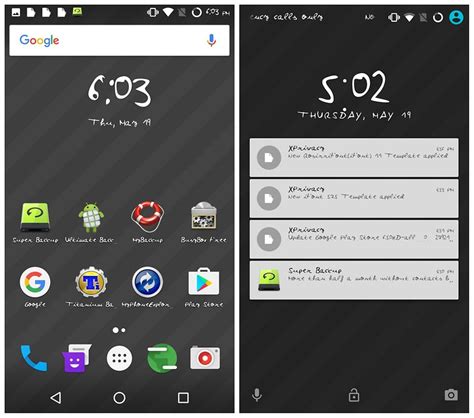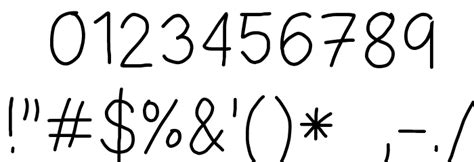
Having your own handwriting in as a font for android will make your device unique from others it adds more personal touch to your device. Craft a personalized note with one of these amazing handwritten fonts below. Myscript stylus mobile does provide any sdk for development? Handwriting fonts free is a font style to used in your samsung galaxy device for making your phone font style which you like to set without restart your phone or withour rooted your device. Handwriting fonts are written with a pen, pencil, or marker.
In such a situation, these apps can be quite helpful. Free handwriting fonts for android. Download handwriting fonts free apk for android, apk file named com.monotype.android.font.jomolhandwriting.fontsfree and app developer company is fonts free for android device. The eka's android handwriting font contains 120 beautifully designed characters. Android is usually know for its customization and themes.
Having your own handwriting in as a font for android will make your device unique from others it adds more personal touch to your device. Handwriting fonts free is a font style to used in your samsung galaxy device for making your phone font style which you like to set without restart your phone or withour rooted your device. The best selection of handwriting fonts for windows and macintosh. Southam script font is signature text with ink style & natural flow. ✔️ customize your own preview on ffonts.net to make sure it`s the right one for your designs. Browse and download handwriting fonts and generate images from custom text with handwriting fonts. Handwriting fonts are written with a pen, pencil, or marker. Have you ever changed your fonts for android to something else? Font name newest most downloads. This signature font is perfect for weddings, watermarks We go to my fonts in hifont, click scan. Elegant fonts with natural hand scratches. Believe it or not, these fonts works on samsung phones with android 7.0 and above.